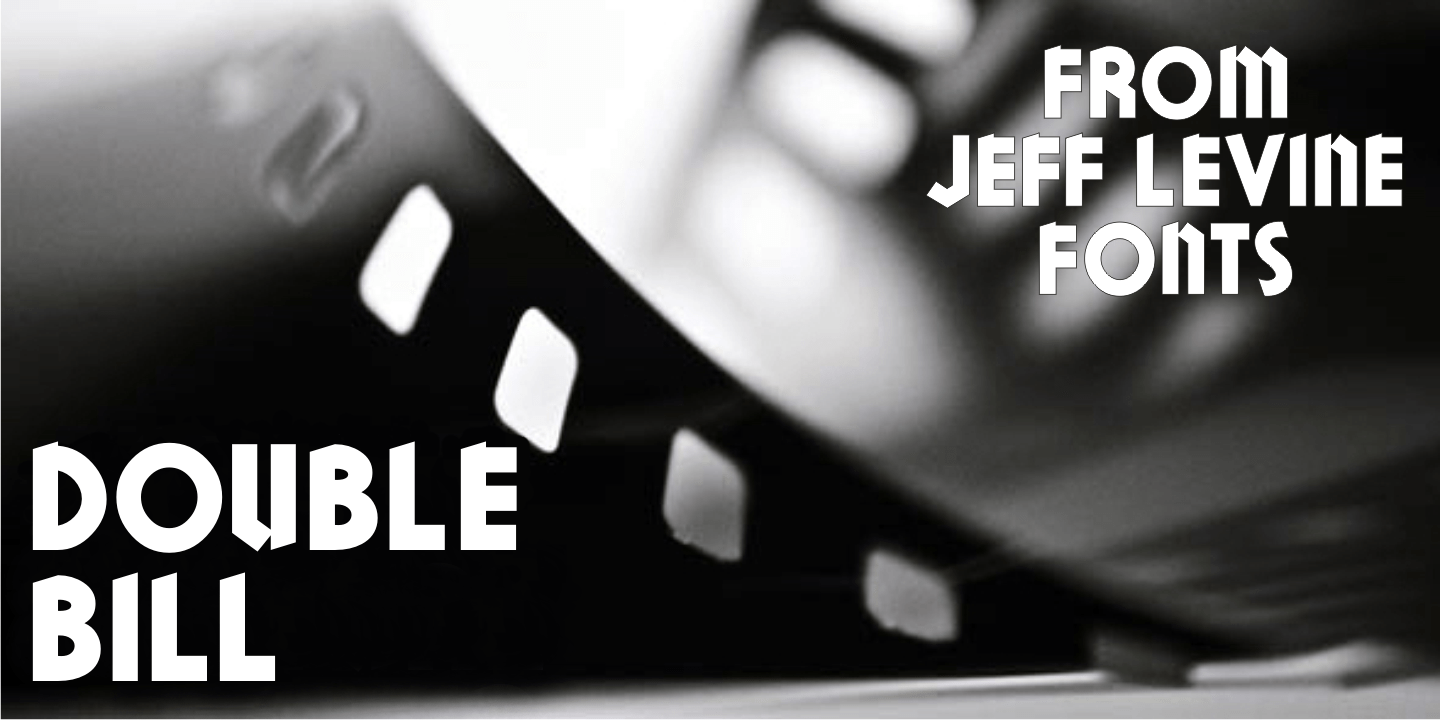
Double Bill
Double Bill JNL gets its inspiration from the promotional movie trailer for 1938's gangster comedy "A Slight Case of Murder" starring Edward G. Robinson.